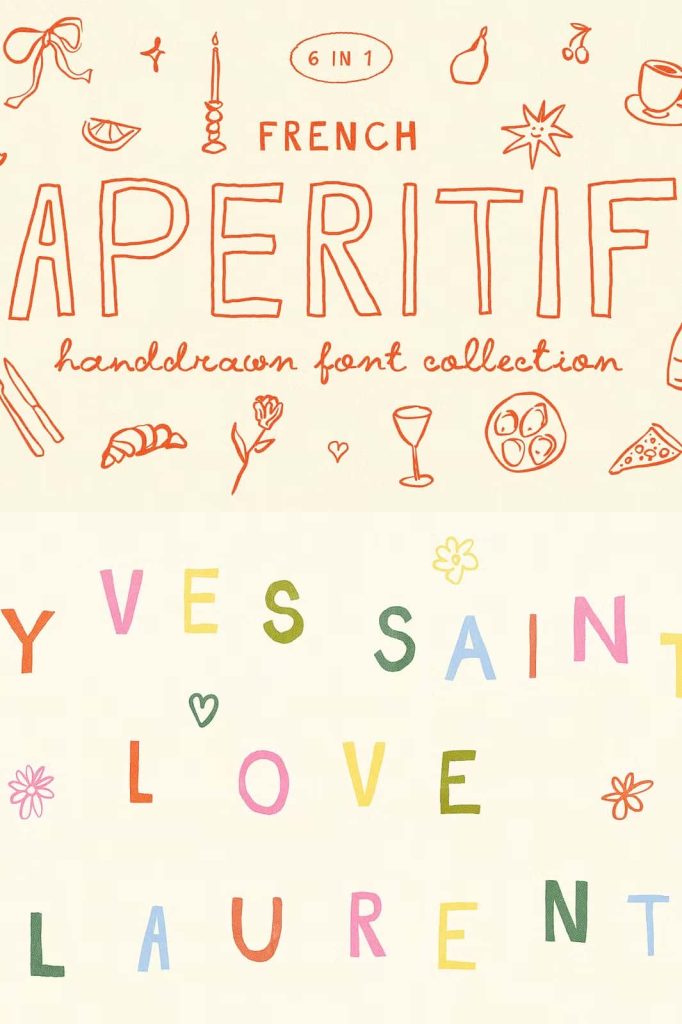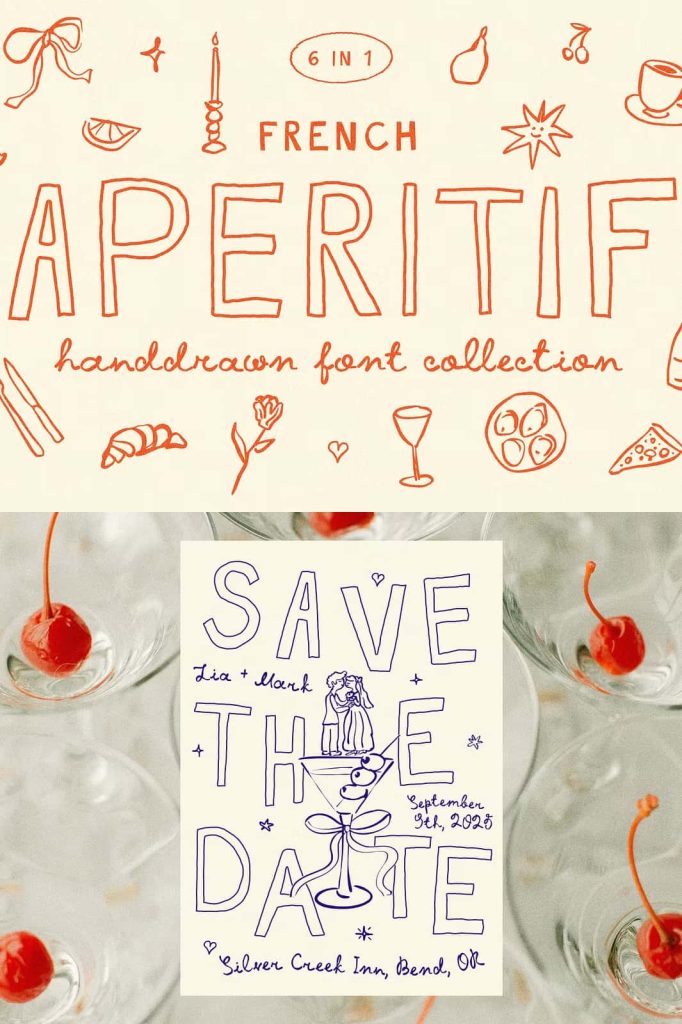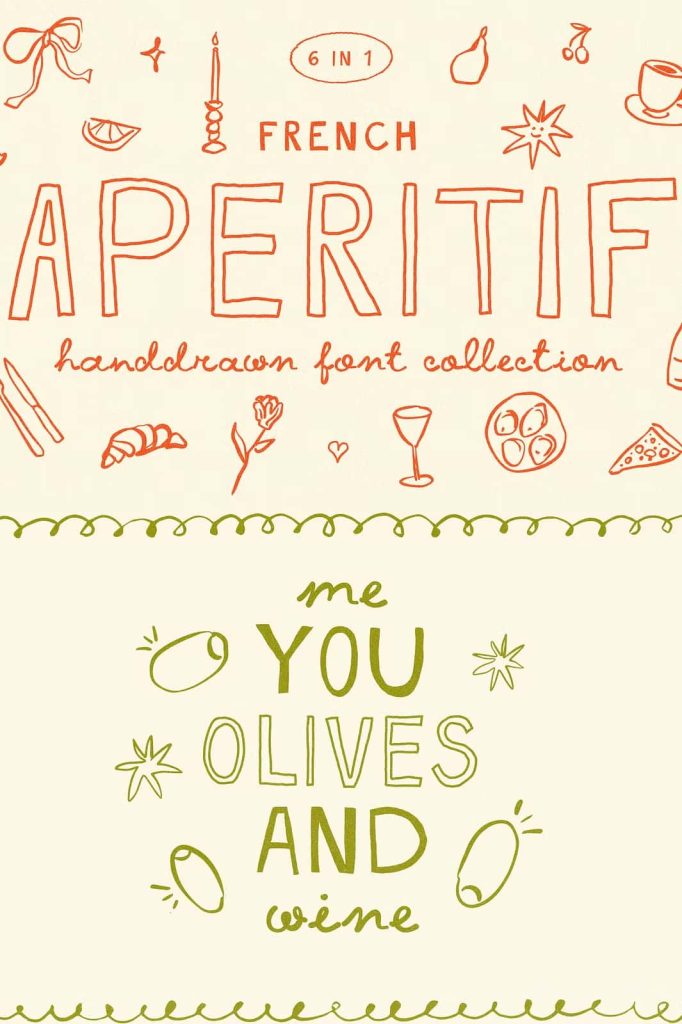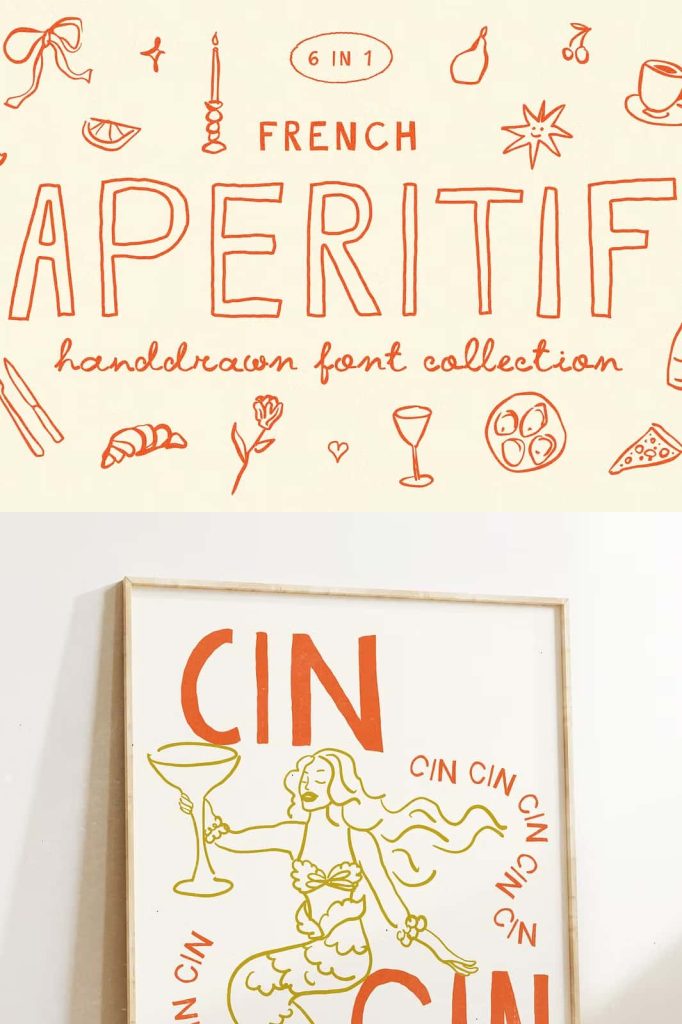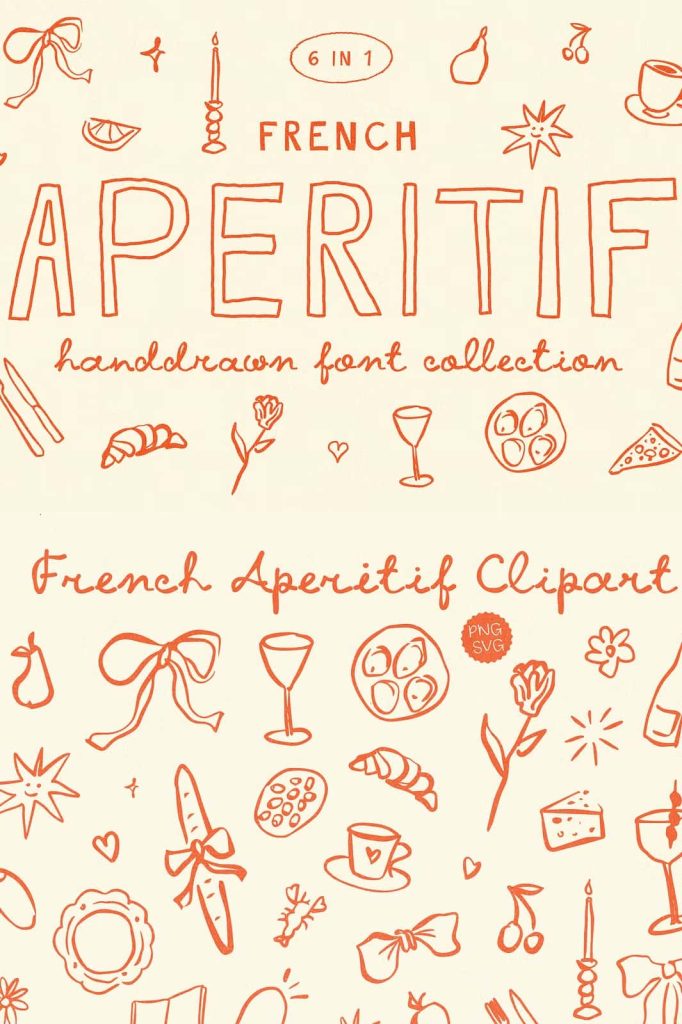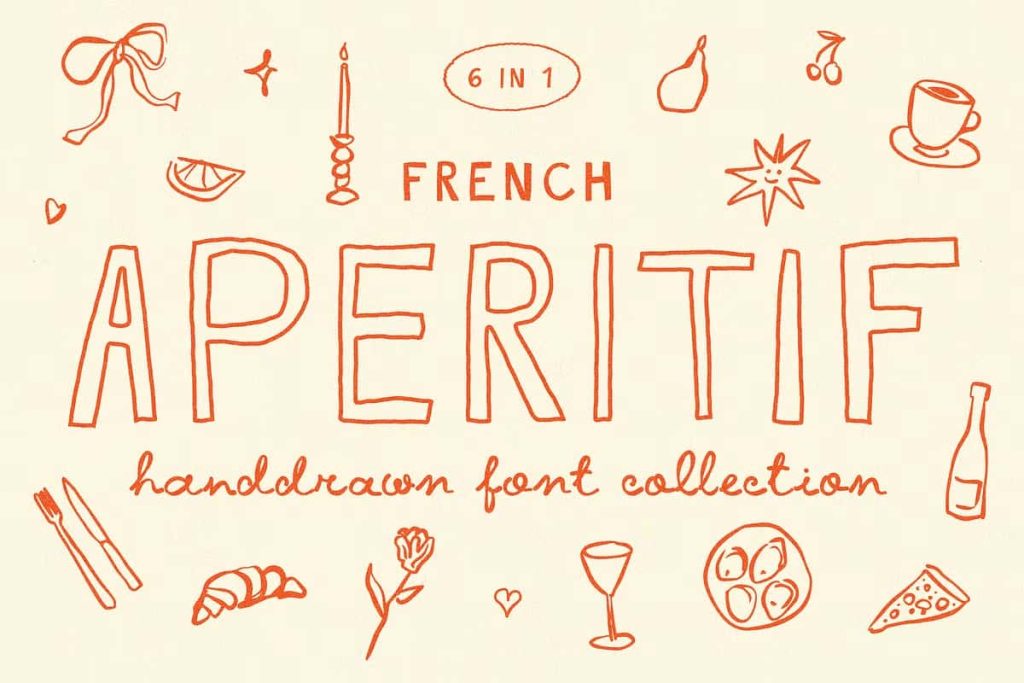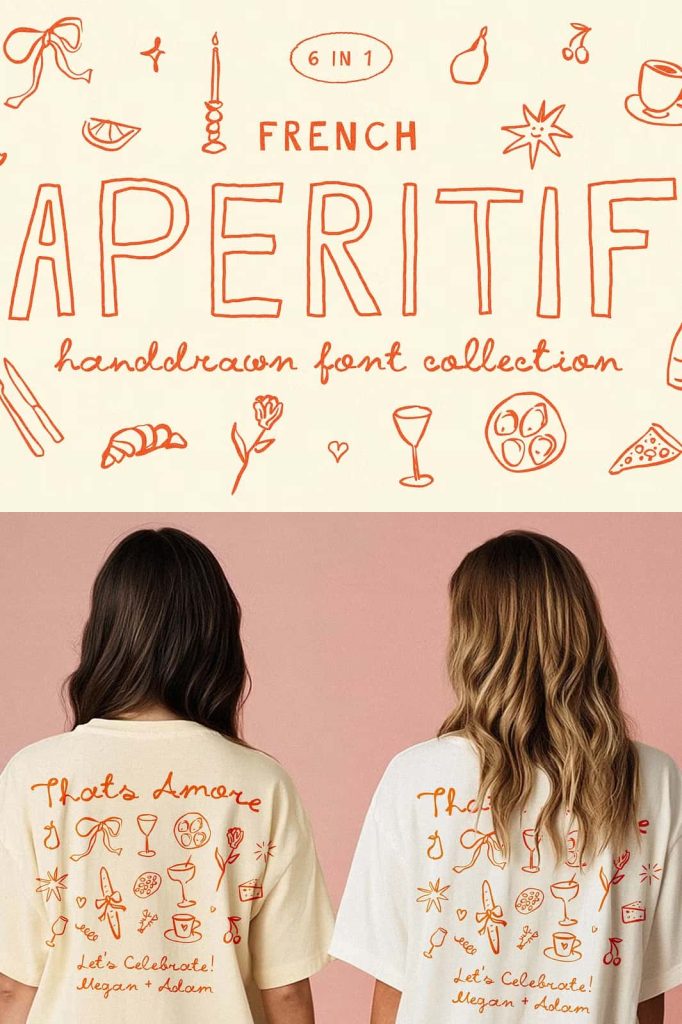
French Aperitif Font: A Modern Hand-Drawn Typeface for Creative Projects
The French Aperitif font stands out as a super trendy and expressive hand-drawn font family crafted with meticulous attention to detail. Designed to elevate your creative projects, this font brings a warm, personal, and modern aesthetic that works beautifully across a wide range of uses. With six unique fonts and an impressive collection of alternate letters, French Aperitif becomes an essential visual tool for creators who want to deliver strong artistic character in every design.
A Hand-Drawn Font Family That Enhances Every Design
French Aperitif introduces a set of handcrafted letterforms that blend authenticity with contemporary flair. Each stroke feels intentional, making the font suitable for designers who want to add more personality and movement to their typography. The natural flow and artistic texture give your work a polished yet approachable look. Whether you design bold posters or soft romantic themes, this font offers the versatility needed to communicate emotion and style effortlessly.
Six Unique Fonts for Unlimited Creative Expression
The French Aperitif font family includes six distinctive styles, each created to help you experiment and explore different visual tones. Its diverse variations allow you to adapt the font to various project types without losing consistency. You can switch between bold, playful, elegant, or handwritten styles to create engaging compositions that feel unified and memorable. With this collection, your typography becomes more dynamic, fresh, and impactful.
Fun Alternates for Personalized Typography
One of the strongest features of the French Aperitif font is its wide set of alternate characters. These alternates give you the ability to craft more custom lettering and refine the exact mood you want to achieve. By mixing and matching stylistic alternates, you can build expressive headlines, unique signatures, and artistic titles that stand out instantly. This accessibility makes the French Aperitif font not only easy to use but also incredibly enjoyable to experiment with.
Perfect for Posters, Wedding Stationery, Branding, and More
Designers often search for a typeface that can adapt seamlessly across various visual themes. French Aperitif meets that expectation with outstanding flexibility. Its organic and lively strokes make it ideal for modern posters that need strong visual pull. At the same time, its soft and charming handwritten style works beautifully for wedding invitations and romantic stationery. The font also supports brand designers, social media creators, and content producers by offering a toolkit that enhances mood, personality, and visual storytelling.
A Must-Have Font for Creatives and Content Designers
If you want a typeface that elevates your creative output, the French Aperitif font is an excellent choice. Its handcrafted design, diverse styles, and rich alternates empower you to produce work that feels original and engaging. From editorial layouts and visual branding to product packaging and digital content, the font adapts effortlessly to every artistic challenge. The French Aperitif font family ensures your designs remain expressive, modern, and visually captivating.